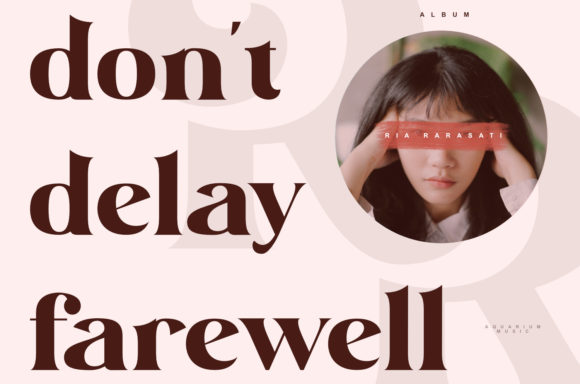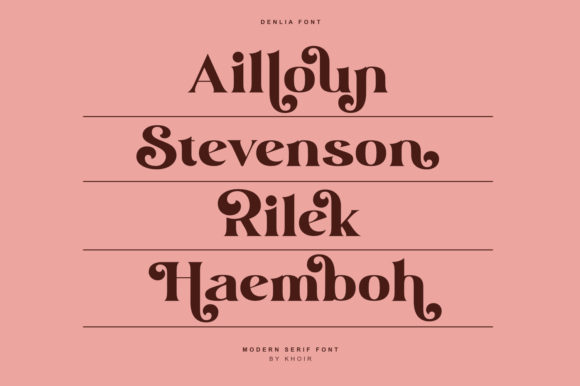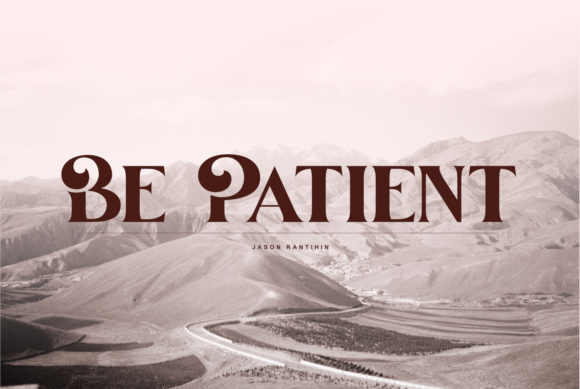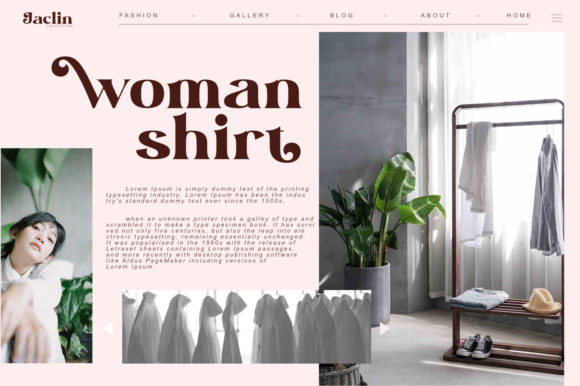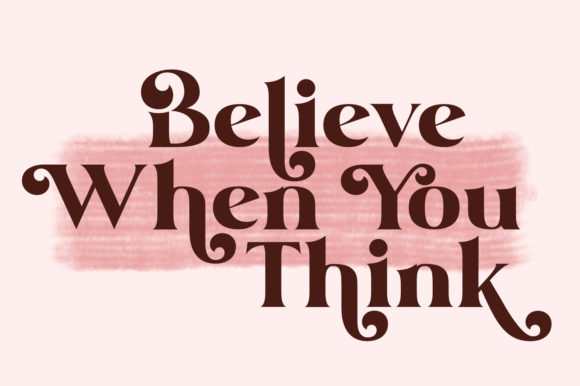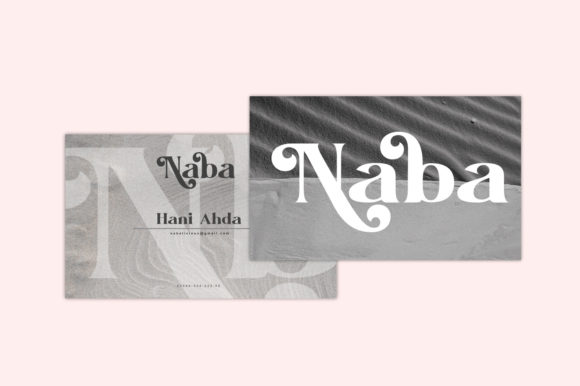
The Denlia Font: A Modern Serif Marvel for Your Creative Projects
I’ll never forget the time I was working on a branding project for a luxury fashion label. My client was particular about the font, wanting something that exuded elegance and sophistication. I scoured the internet, trying out font after font, but nothing seemed quite right. That was until I stumbled upon Denlia Font. ✨
Denlia is a modern and stylish serif font that has quickly become a favorite in my design arsenal. Its unique letters and great readability make it perfect for a wide range of creative projects, from branding designs and logos to invitations, novels, books, magazines, labels, and greeting/wedding cards.
What I Love About Denlia Font
- ✅ Unique and stylish design: Denlia Font stands out from the crowd with its modern serif design that’s both elegant and sophisticated.
- ✅ Great readability: The font is clear and easy to read, making it perfect for body text and headlines.
- ✅ Versatile: Denlia Font is suitable for a wide range of creative projects, from branding and logos to invitations and books.
While Denlia Font is an excellent choice for many projects, there are a few things to keep in mind. ⚠️
- 🤔 May require OpenType features: To get the most out of Denlia Font, you may need to use OpenType features, which can be tricky to navigate for beginners.
The Backstory of Denlia Font
Denlia Font was designed by a team of typographers who wanted to create a modern serif font that was both elegant and readable. The font was inspired by classic serif designs, but with a unique twist. The designers aimed to create a font that was perfect for creative projects, from branding and logos to invitations and books.
Q: What is Denlia Font?
Denlia Font is a modern and stylish serif font with unique letters and great readability.